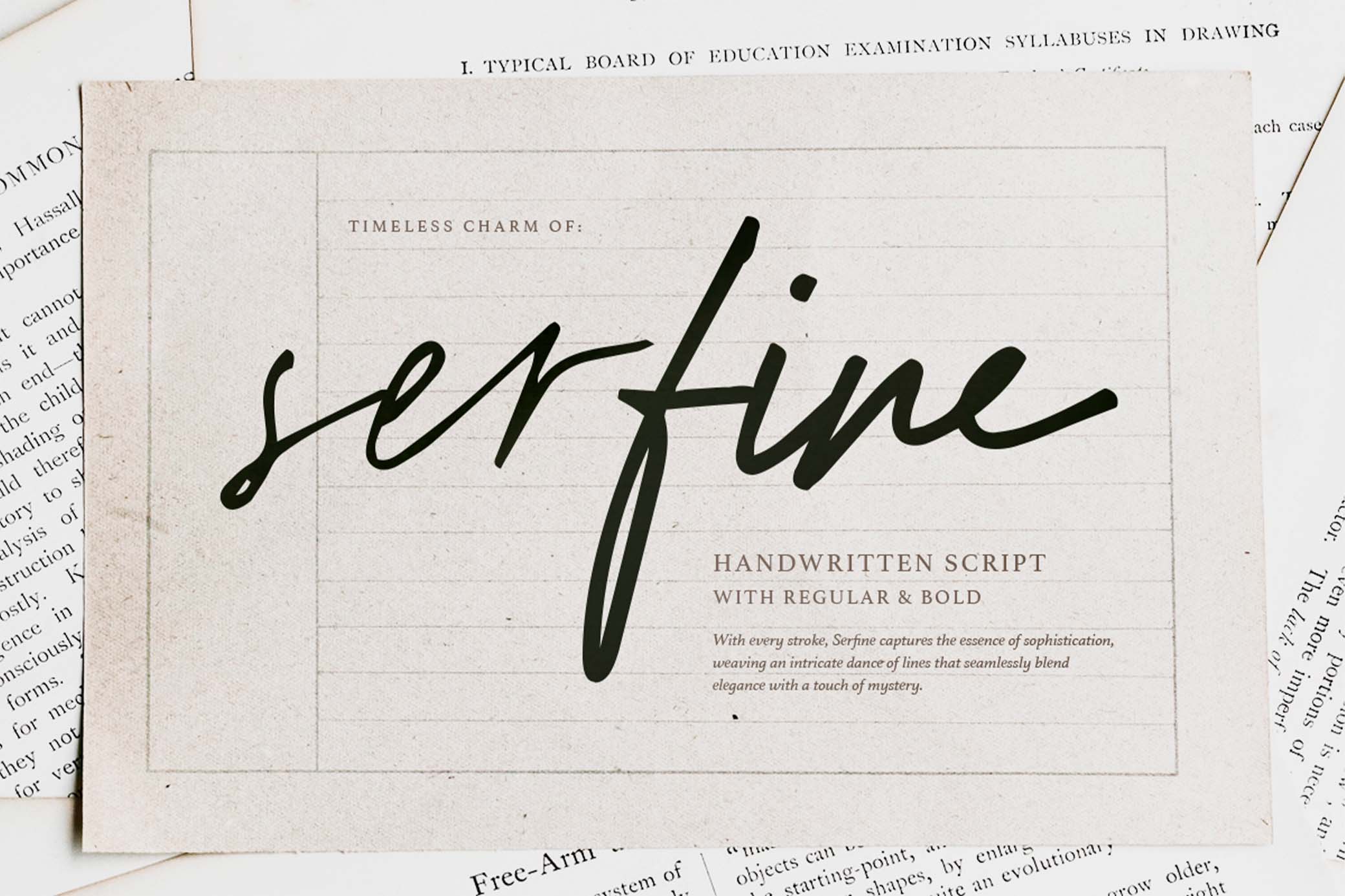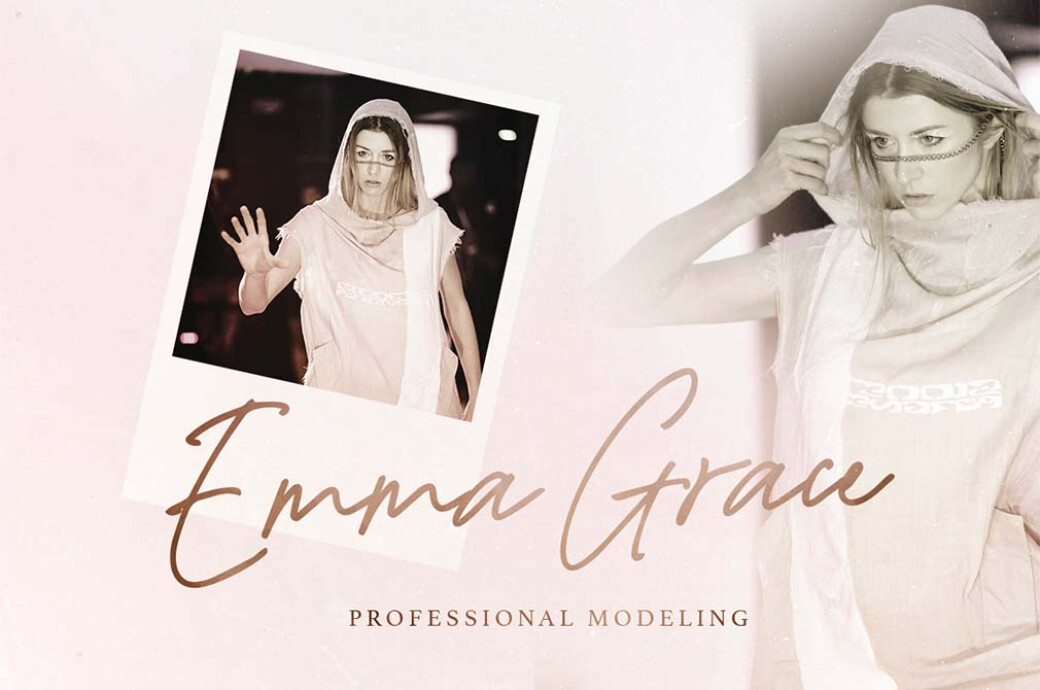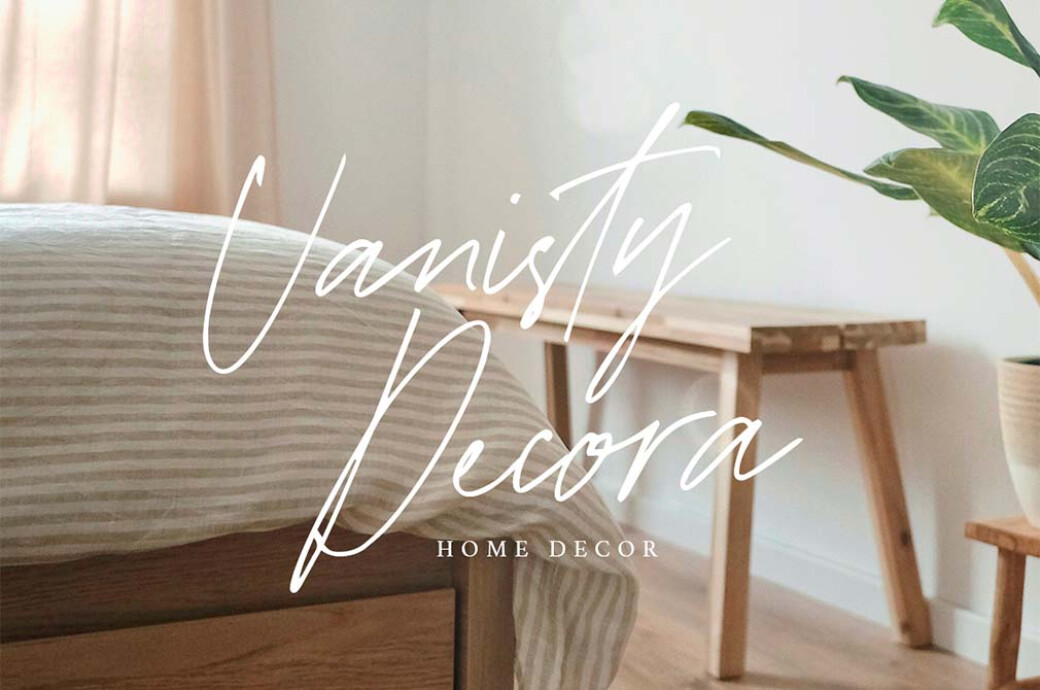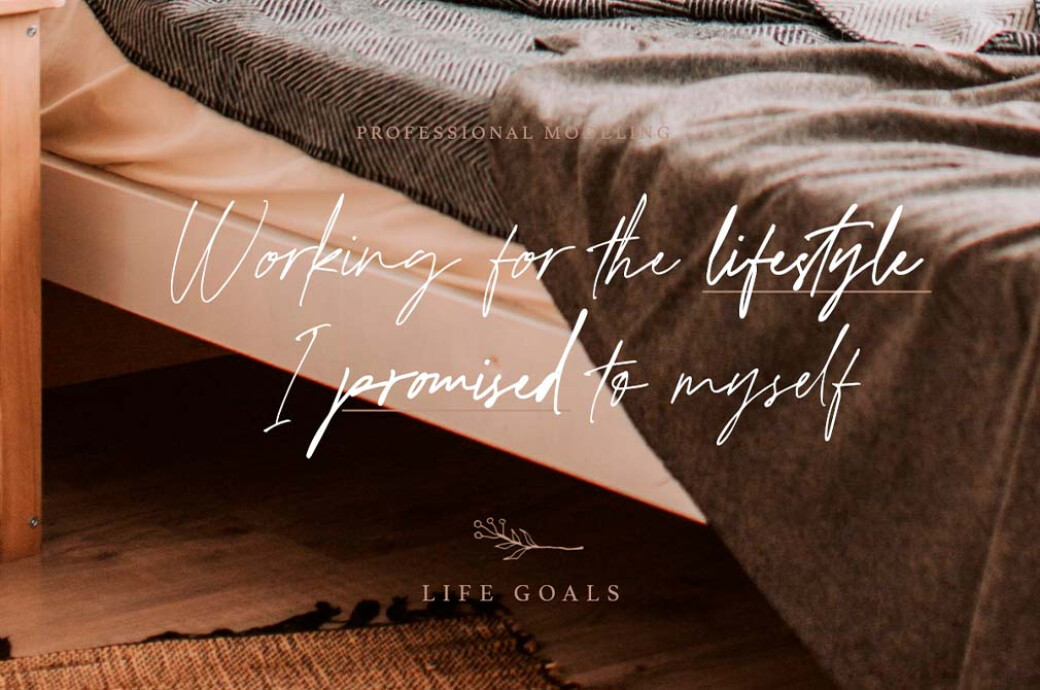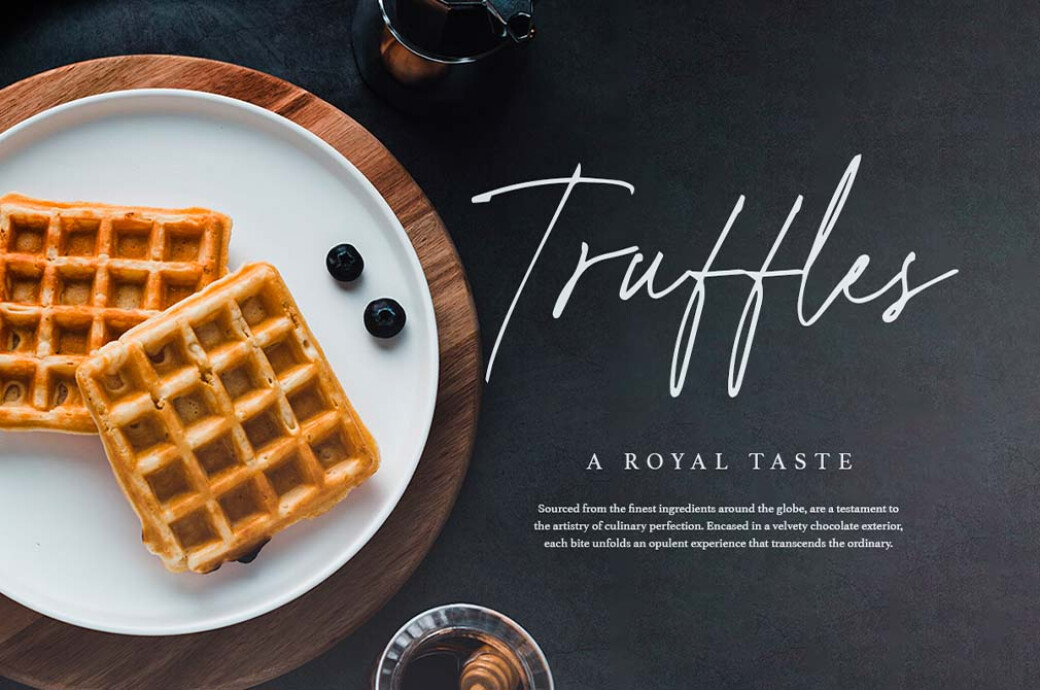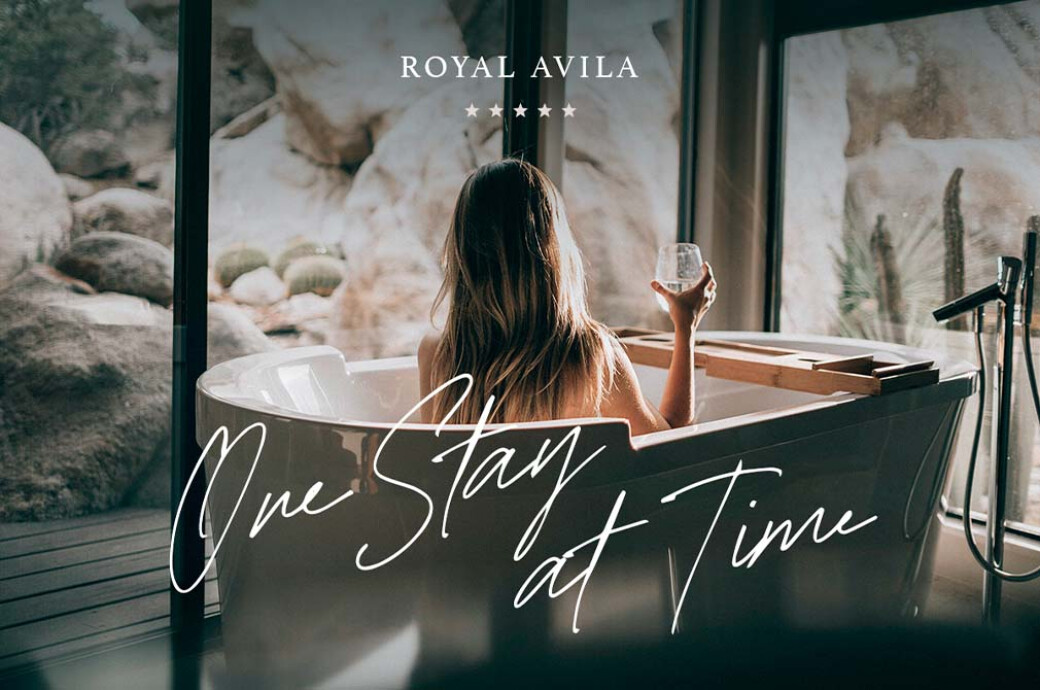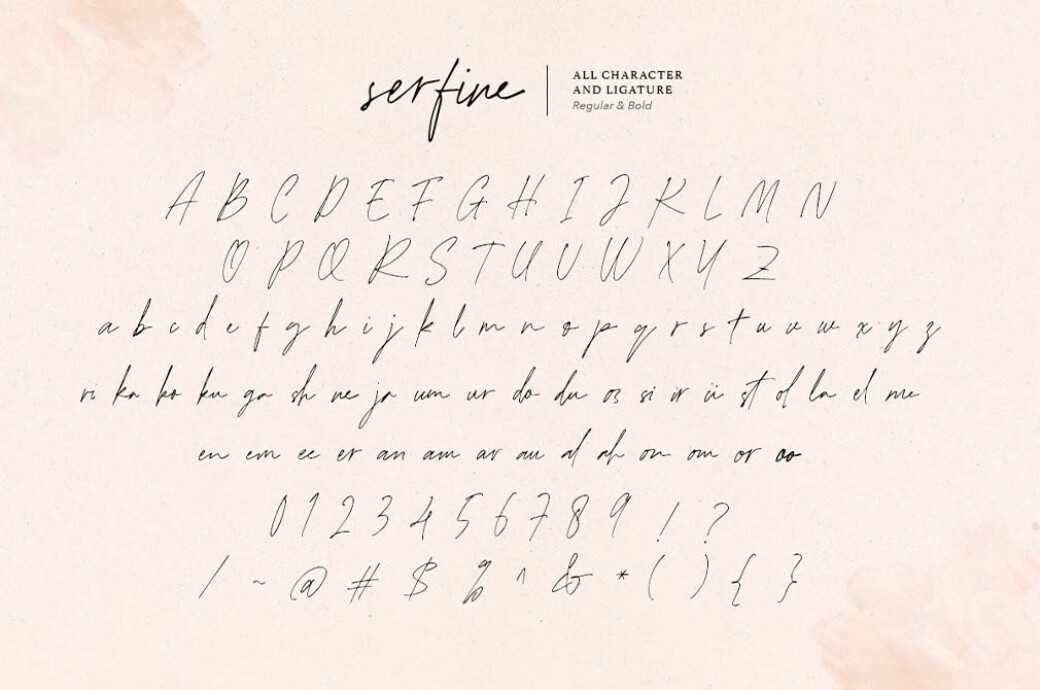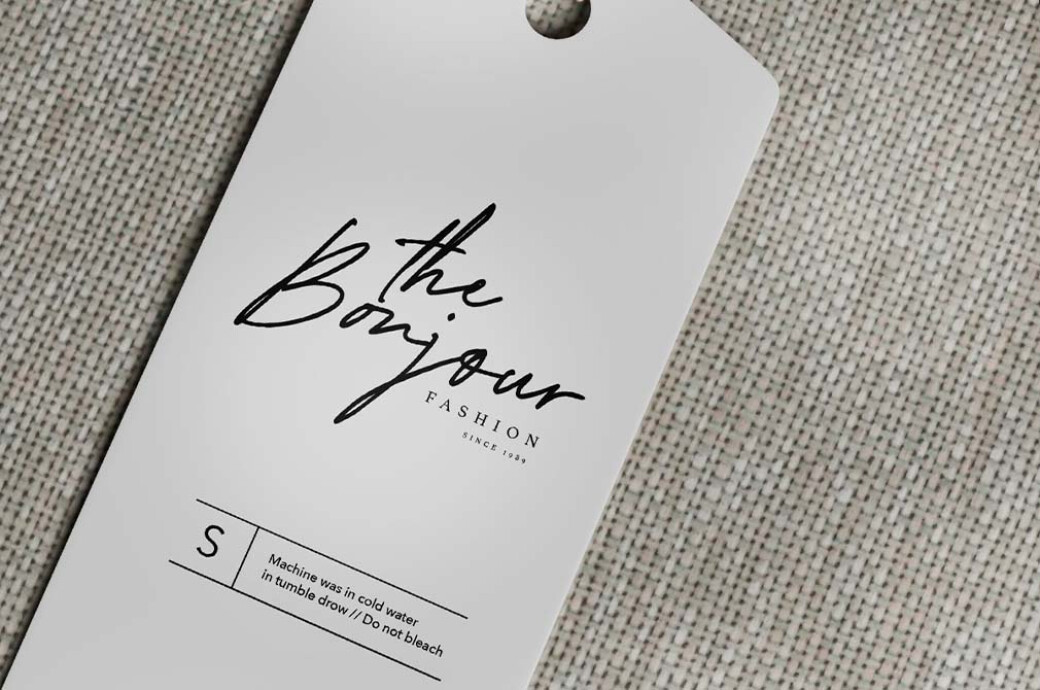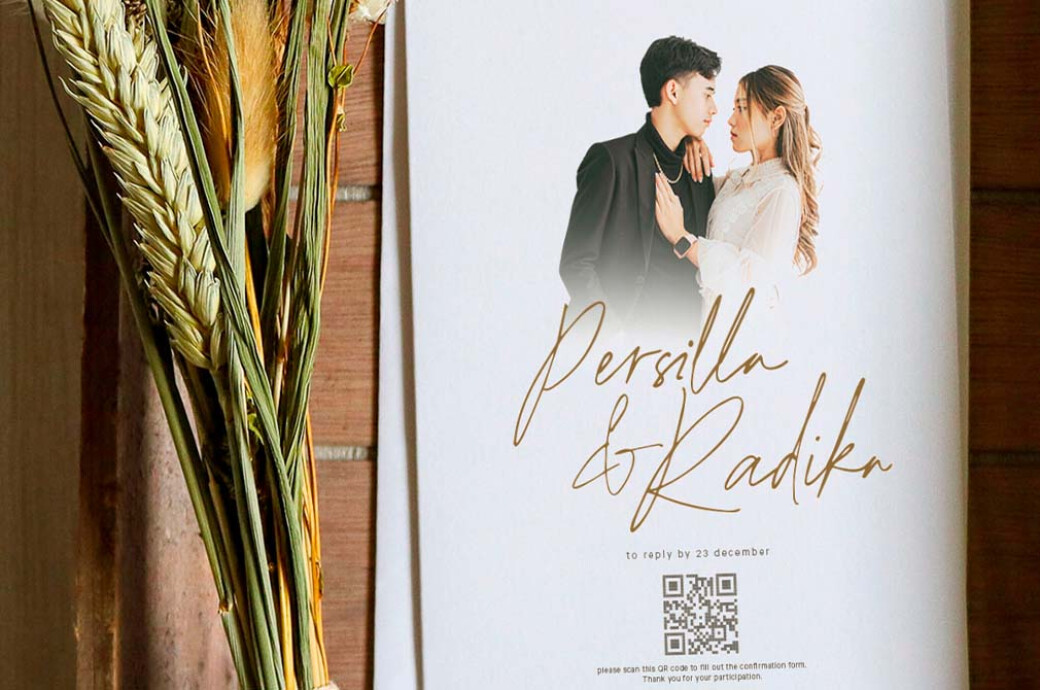
Serfine | Handwritten Script
We tend to take cues from sophisticated design that indulges our aesthetic needs. A headline composed in a handwritten script is simple and easy to replicate. Fonts, akin to fashion, reverberate personal style. Such an attention catcher, innit!
What could be better than a script crafted with handwritten charm? Only a signature one featuring ligatures and m****ultilingual support. Being entirely versatile, Serfine is a gold mine of interpretations that would suit your vintage design of heirloom quality at any upscale occasion. Regular, Bold, you name it.